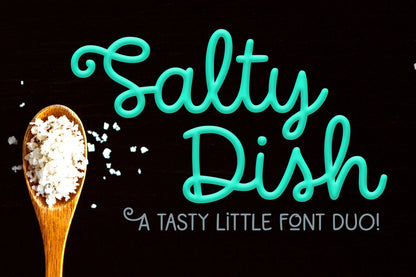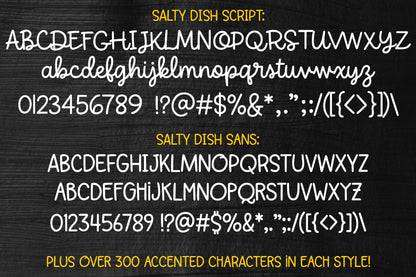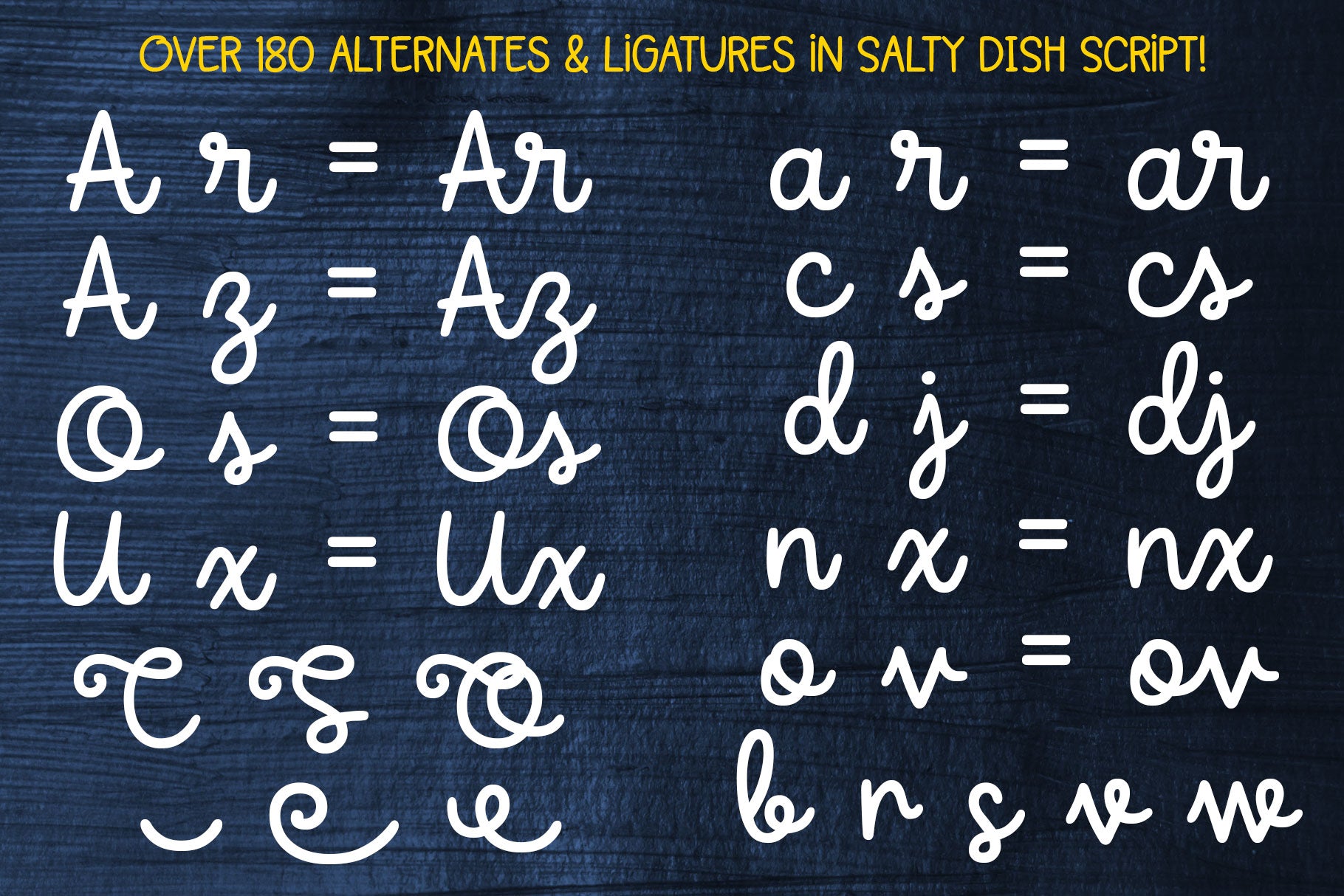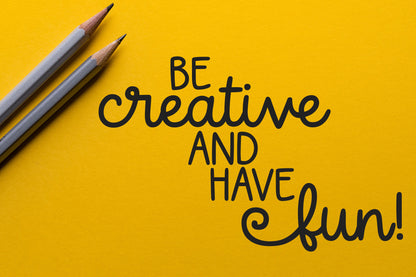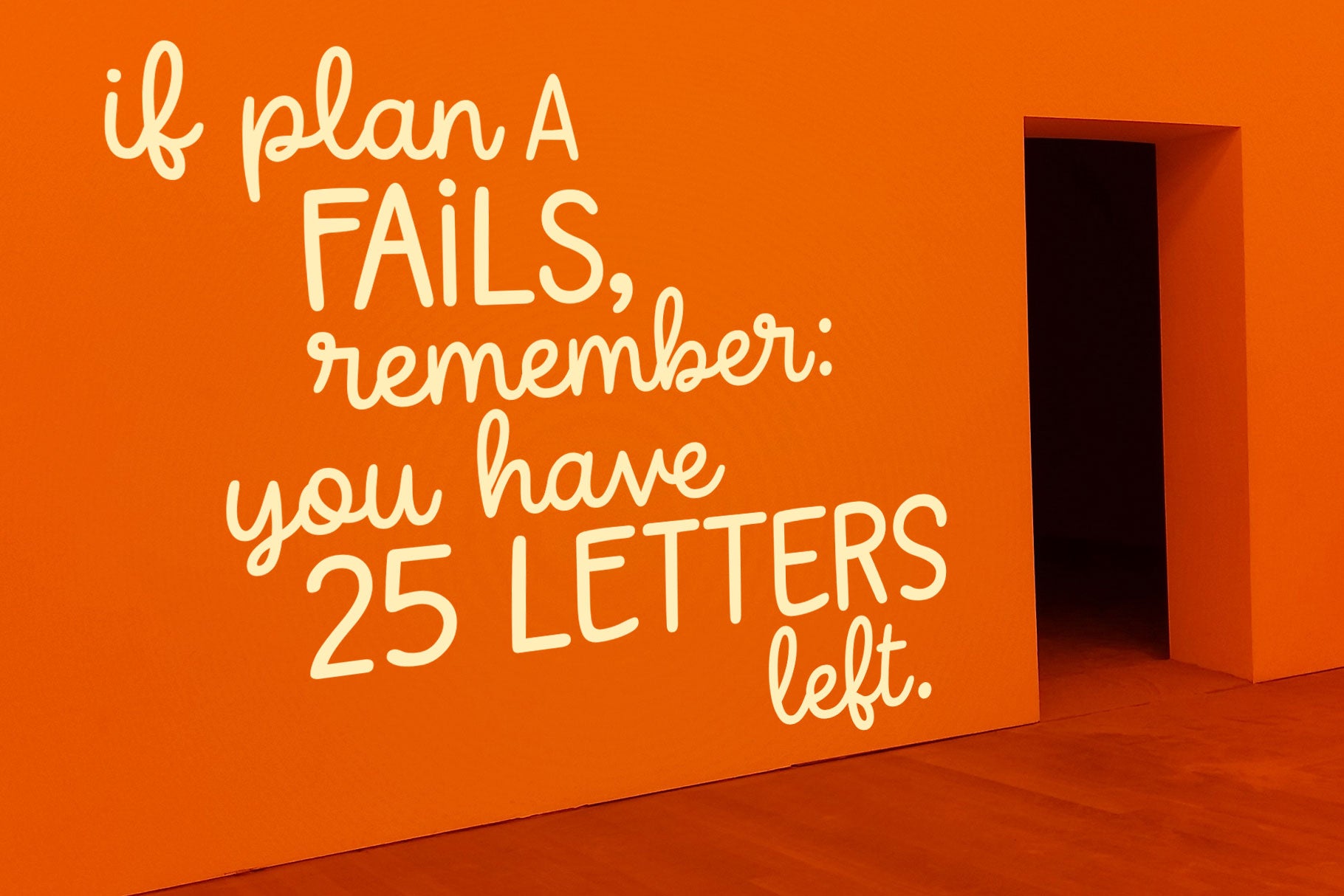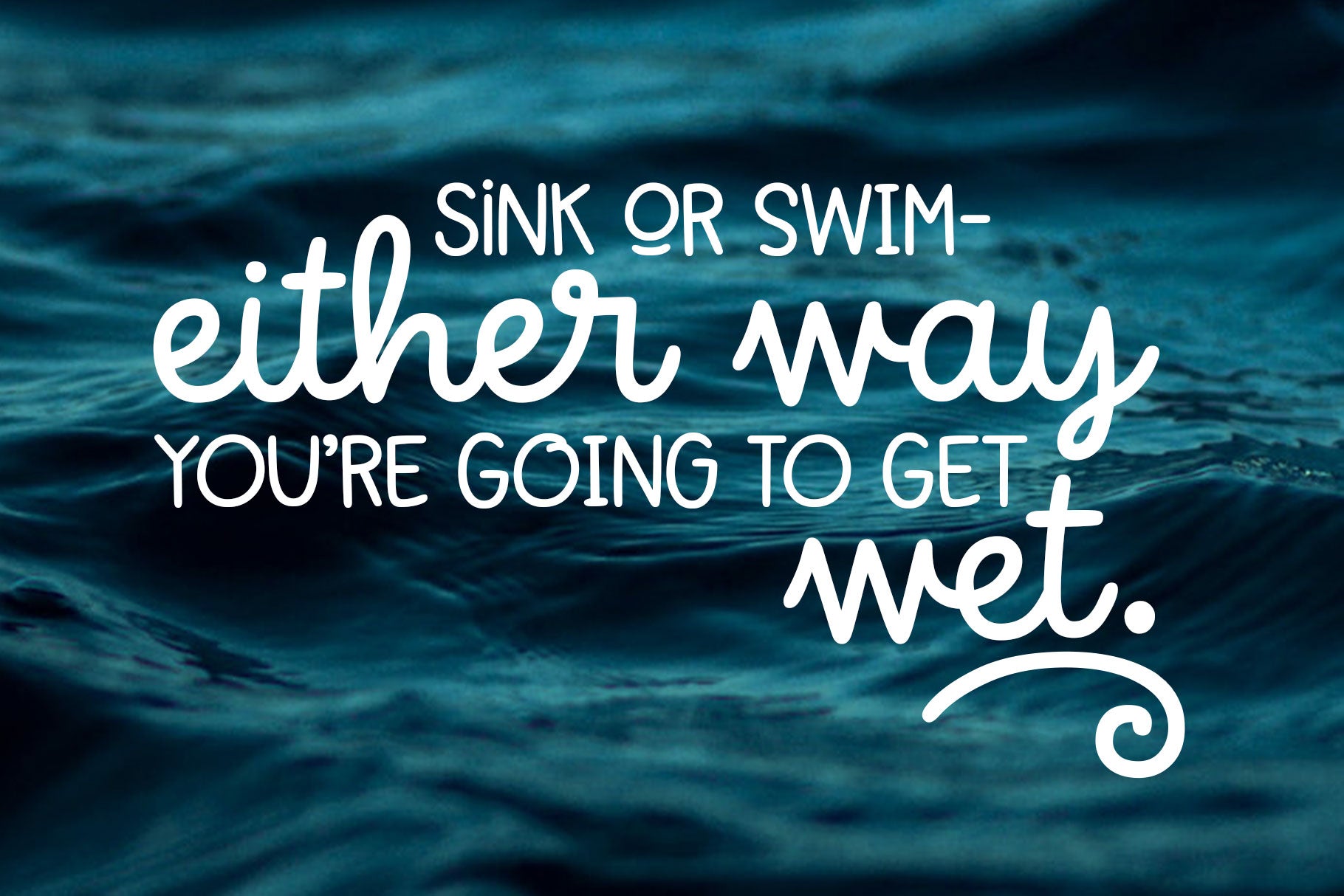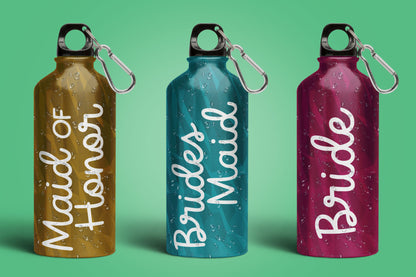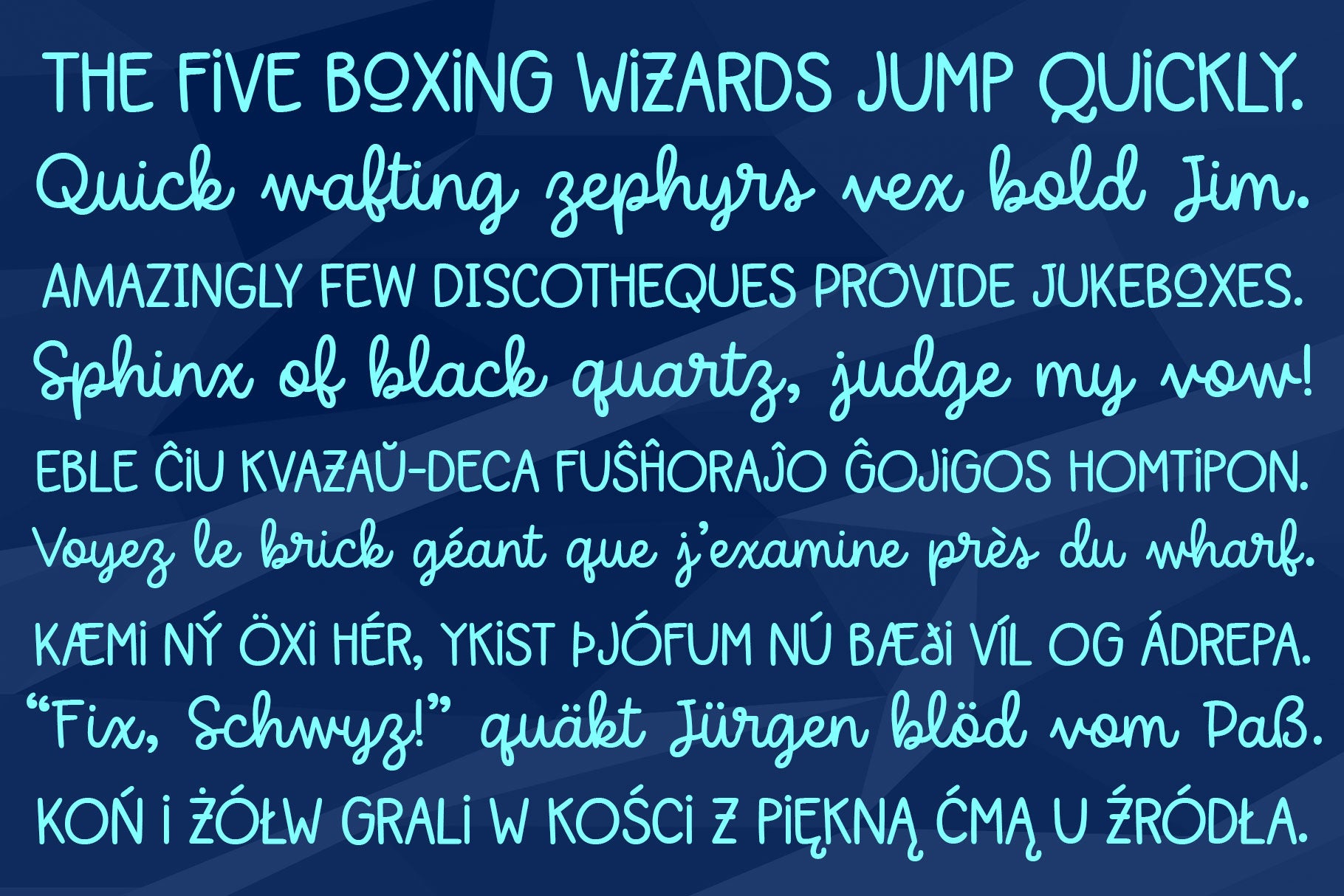
I started out with just one set of letters - the script font that is Salty Dish Script. But when I finished it, I decided it just wasn't enough! So I used those letters as a base to create Salty Dish Sans, a supporting all-caps font with two tight uppercase sets. You can use each font separately, or bring them together to team up on your project!
Both of the Salty Dish fonts have a ton of punctuation, over 300 extended Latin characters for language support, and of course they've been extensively cleaned and smoothed so they're great for cutting, crafting, and printing at any size!
Salty Dish Script also contains 190 bonus characters in the Private Use Area - alternates, decorative swashes, and a ton of multi-letter ligatures to make sure you have all of the smooth connections you need!